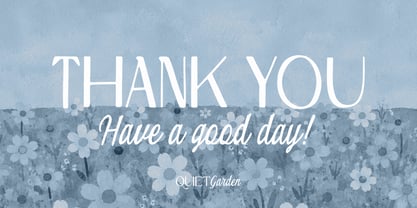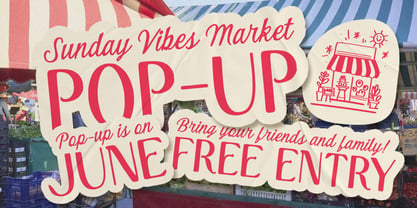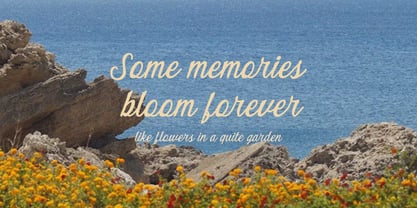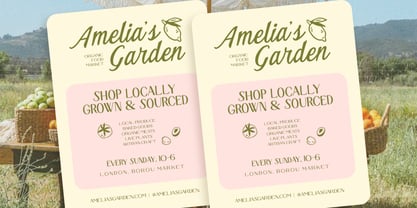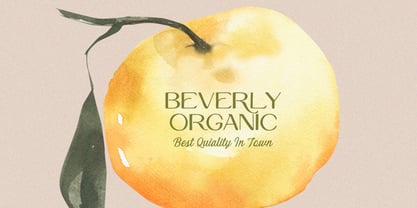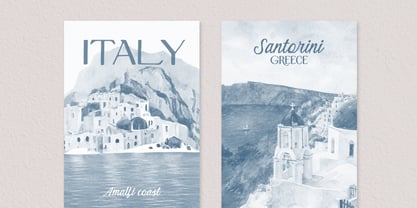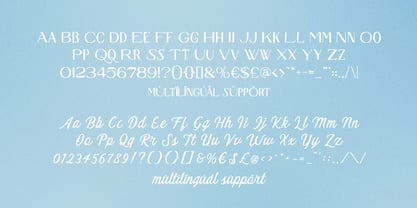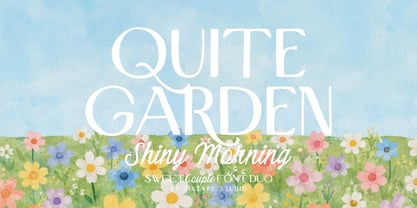
Quiet Garden
by Sixtype Foundry
The Quiet Garden Font Family and published by Sixtype Foundry. Quiet Garden contains 2 styles and family package options. More about this family
Quiet Garden is a charming font duo that seamlessly combines a graceful high-contrast serif with a flowing handwritten script. Inspired by blooming flower fields, countryside markets, and soft watercolor aesthetics, this pairing exudes a warm, sophisticated, and inviting look. The serif features delicate curves, refined proportions, and decorative swashes that enhance elegance in headlines, while the script companion adds a natural handwritten touch, making it perfect for signatures, quotes, and branding accents. Ideal for wedding stationery, organic product packaging, boutique logos, feminine branding, social media graphics, greeting cards, travel posters, and lifestyle projects, Quiet Garden offers a timeless balance of beauty, softness, and readability. Its romantic character and vintage-inspired charm make it an excellent choice for designers seeking a versatile font duo with a fresh, nature-inspired personality, suitable for various creative applications.